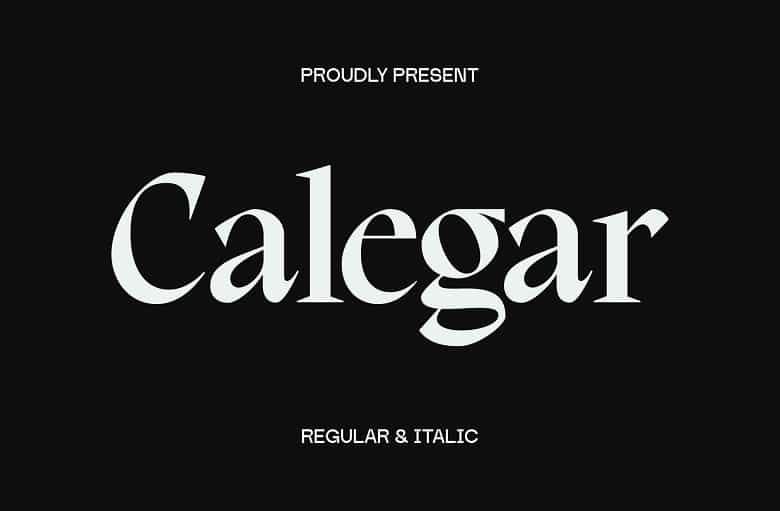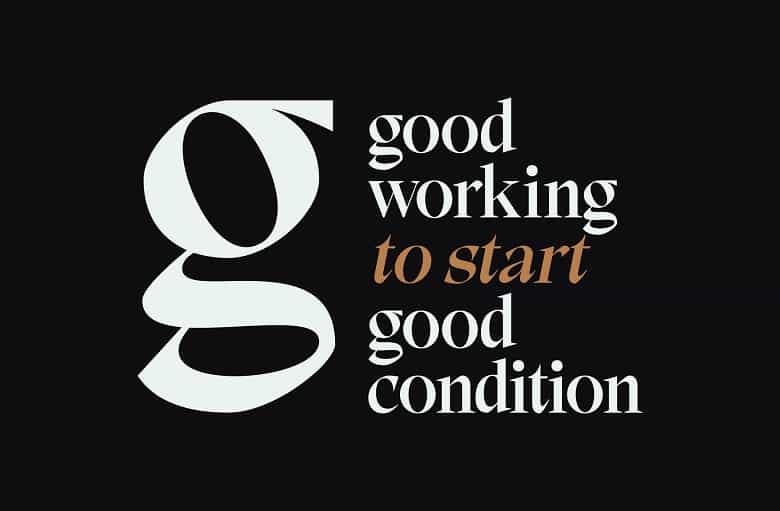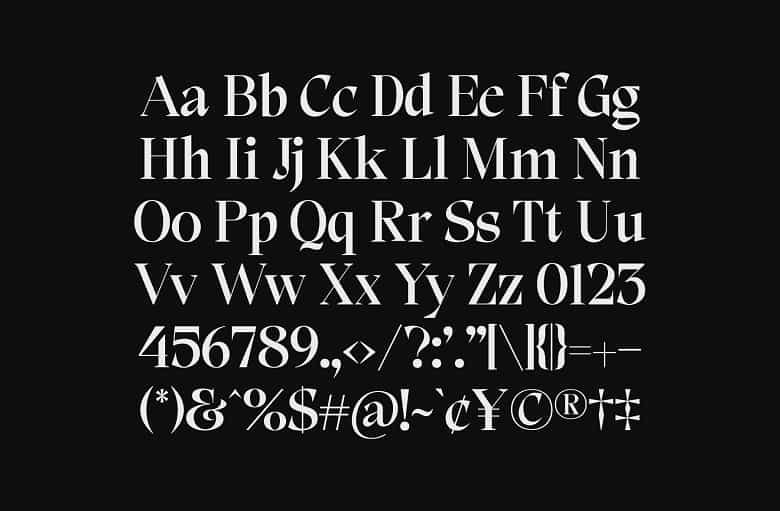
Calegar is a powerful serif display font, which combines traditional refinement and contemporary style. This particular font comes in two styles namely the regular and the italic. This template is simple and elegant, which makes it perfect for corporate branding, branding identity as well as other business related projects.